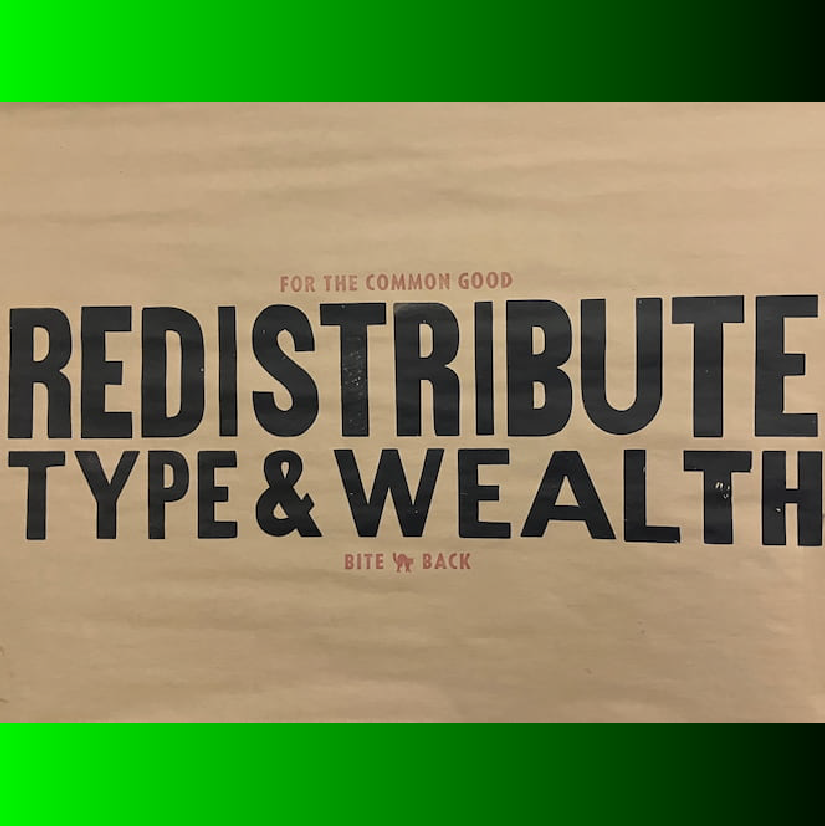
Penland School of Craft is one of the oldest craft schools in the U.S., founded in 1929 as a weaving school and expanding over the decades to encompass a range of methods and studios. Penland's Letterpress Studio has hosted established artists as teachers, students, resident artists, and more over multiple decades.
This project and current database build on Letterpress & Print Studios Coordinator Adam Leestma's studio leadership and work, including documentation of the wood type collection in photo and list form. Sean P. Morrisey and Jay Fox's work updating and compiling the current type inventory binders is also integral to this project.
I volunteered to help with type collection organization, documentation, and this online project starting with my Winter 2026 artist residency & fellowship at Penland, and continuing doing my Summer 2026 letterpress class. My scan and transcription of the current binder list, and photos of the type and equipment collection in the Letterpress Studio accompany my web design and database creation work. The letterpress typecase labels (new in July 2026!) will aid both the database, and in-person printers' ability to easily log where they took their type from. The "Home for Beloved Broken Wood Type" case I created showcases & protects Penland's still-beautiful and usable broken sorts, so they're seen as potentials for art projects instead of the trash bin (see my Broken Wood Type site for more on that project).
See Leslie Noell and Eileen Wallace's project printing the backs of some of Penland's Gothic wood type—a beautiful exploration of the all-over character of well-used wood type.
Collection Photos
Once the database work is complete, this will change to a labeled and organized gallery that lets you click into details about the type in each photo. For now, please enjoy this sampling of unlinked photos from the type collection:
Penland's Letterpress Studio movable type collection, photographed by Amanda Wyatt Visconti during their 2026 winter residency.